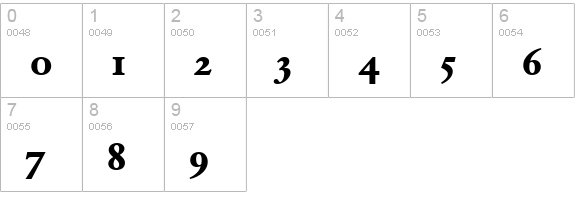
Garamond BE Bold Oldstyle Figures Font Details
Garamond BE Bold Oldstyle Figures is a strong, high-contrast variant in the Garamond typeface family \xE2\x80\x94 well suited to headlines, attention-grabbing titles, and strong calls-to-action.
Garamond BE Bold Oldstyle Figures font is a timeless classic that exudes elegance and sophistication. With its sturdy and bold strokes, this font commands attention and adds a touch of authority to any project. The oldstyle figures give it a vintage charm, evoking a sense of nostalgia and tradition. This font is versatile and can be used in a variety of contexts, from editorial design to branding and advertising. It effortlessly blends into both modern and traditional designs, making it a favorite among designers and typographers alike. What sets Garamond BE Bold Oldstyle Figures font apart is its availability as a free download at FontsMarket.com. This means that designers and enthusiasts can easily access and utilize this beautiful font without any cost. Whether you are a professional designer or a hobbyist, this font is readily available to enhance your creative projects. With its rich history and timeless appeal, Garamond BE Bold Oldstyle Figures font is a must-have for anyone looking to add a touch of sophistication to their designs. Its free availability makes it even more desirable, allowing designers to create stunning visuals without breaking the bank. Download Garamond BE Bold Oldstyle Figures font today and let its beauty and versatility transform your next project.